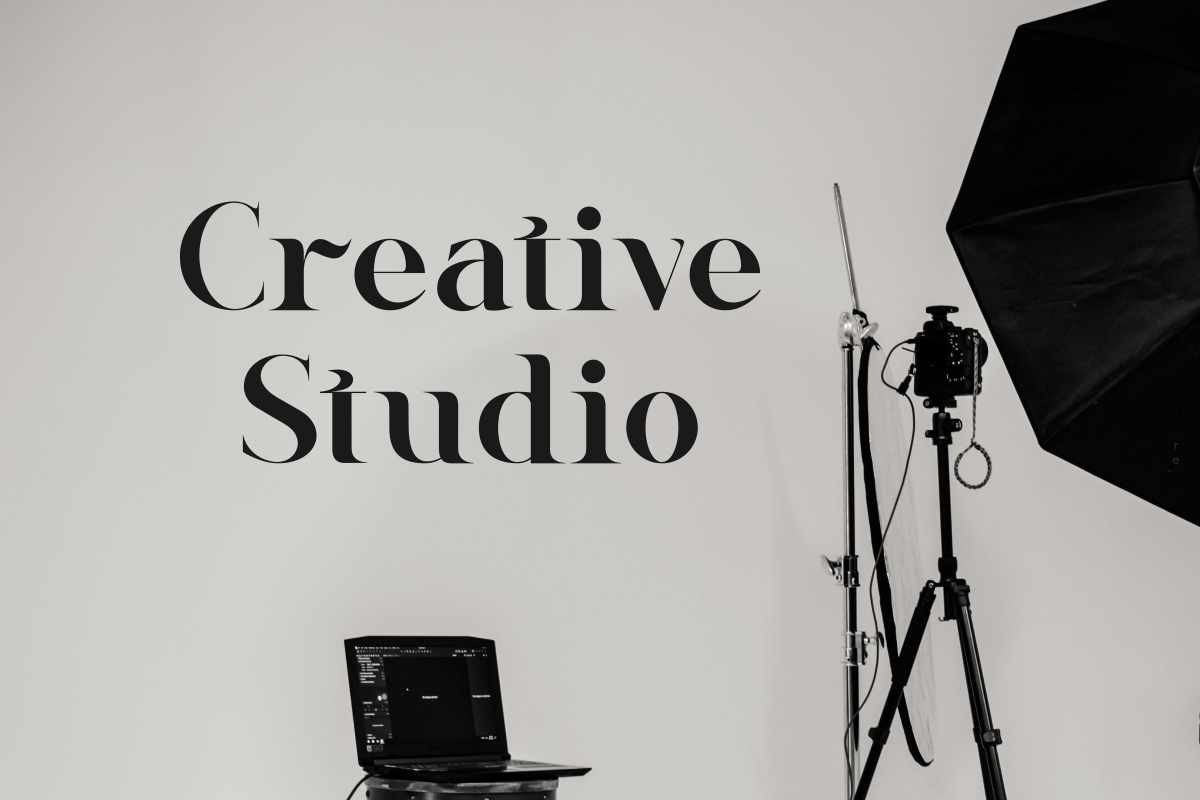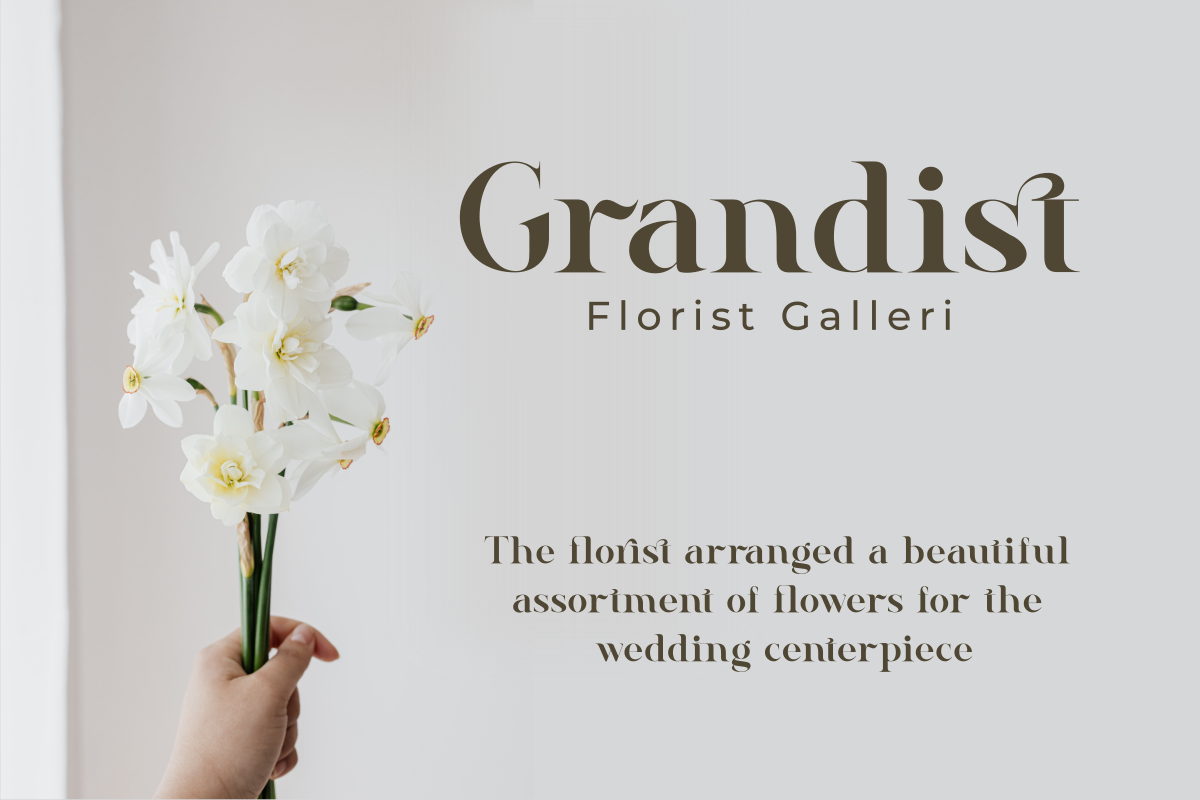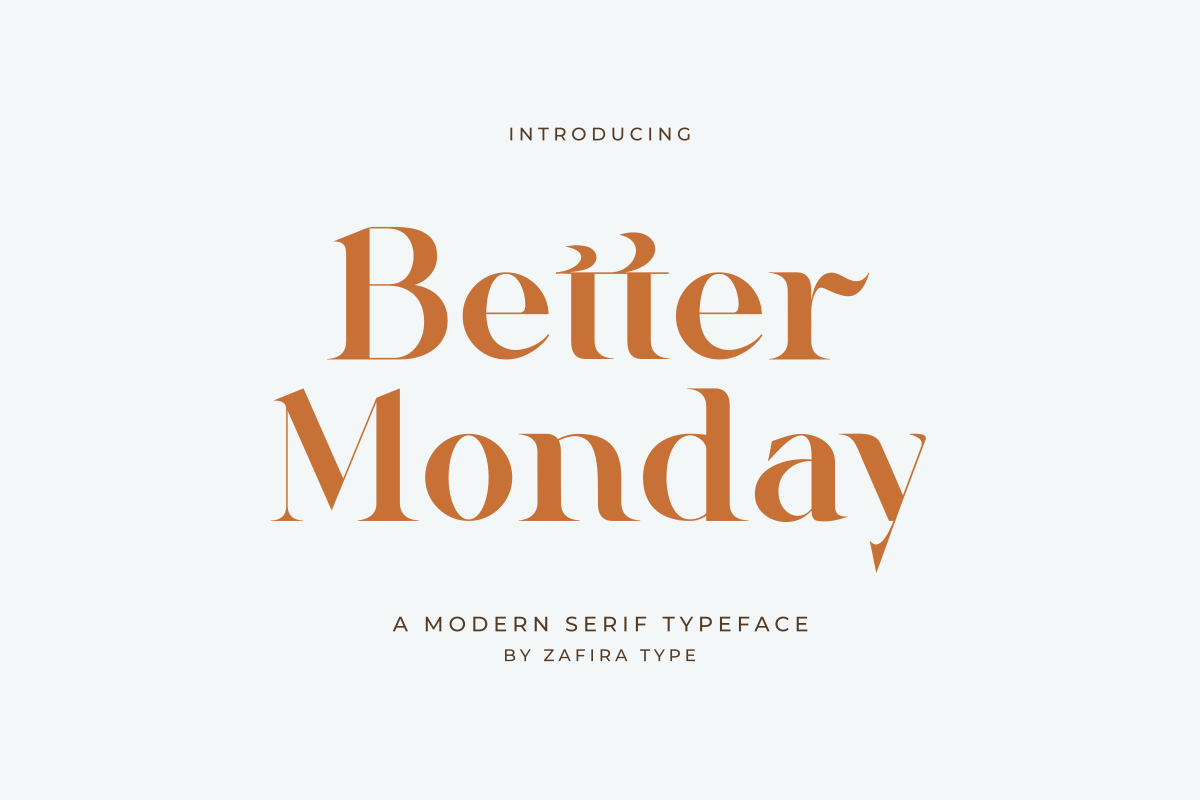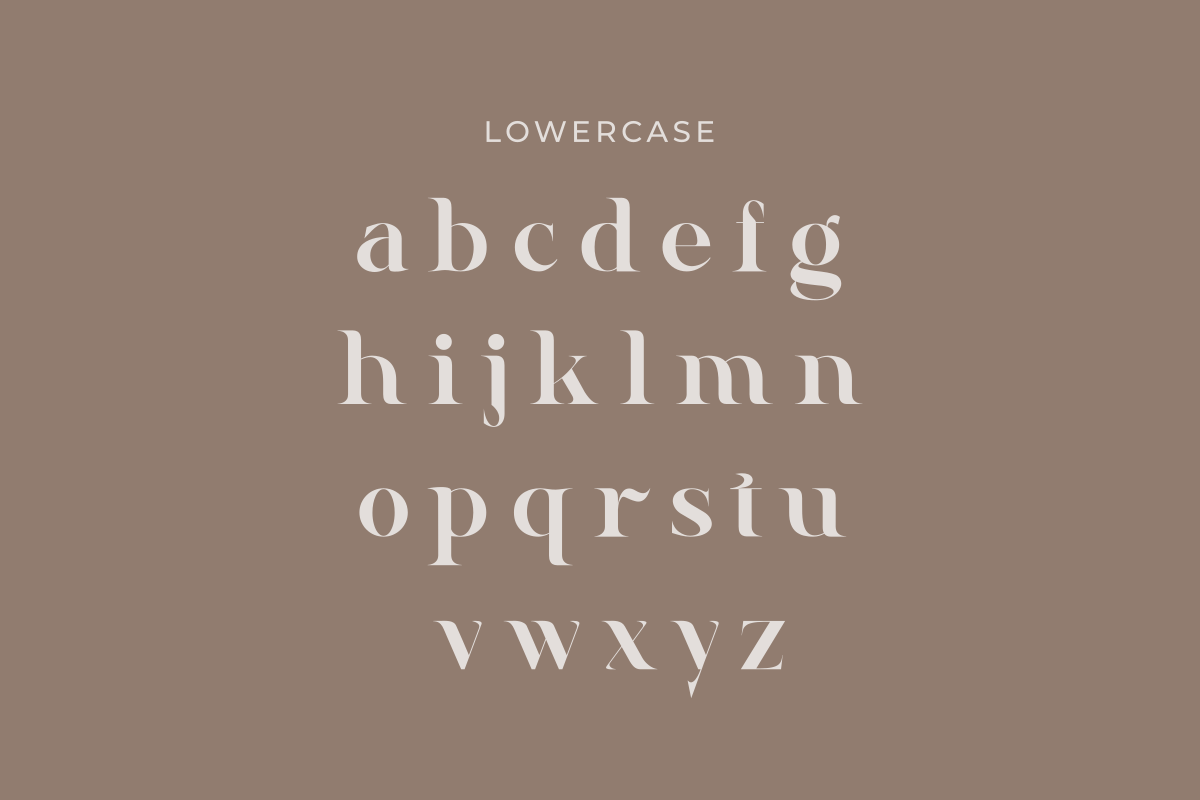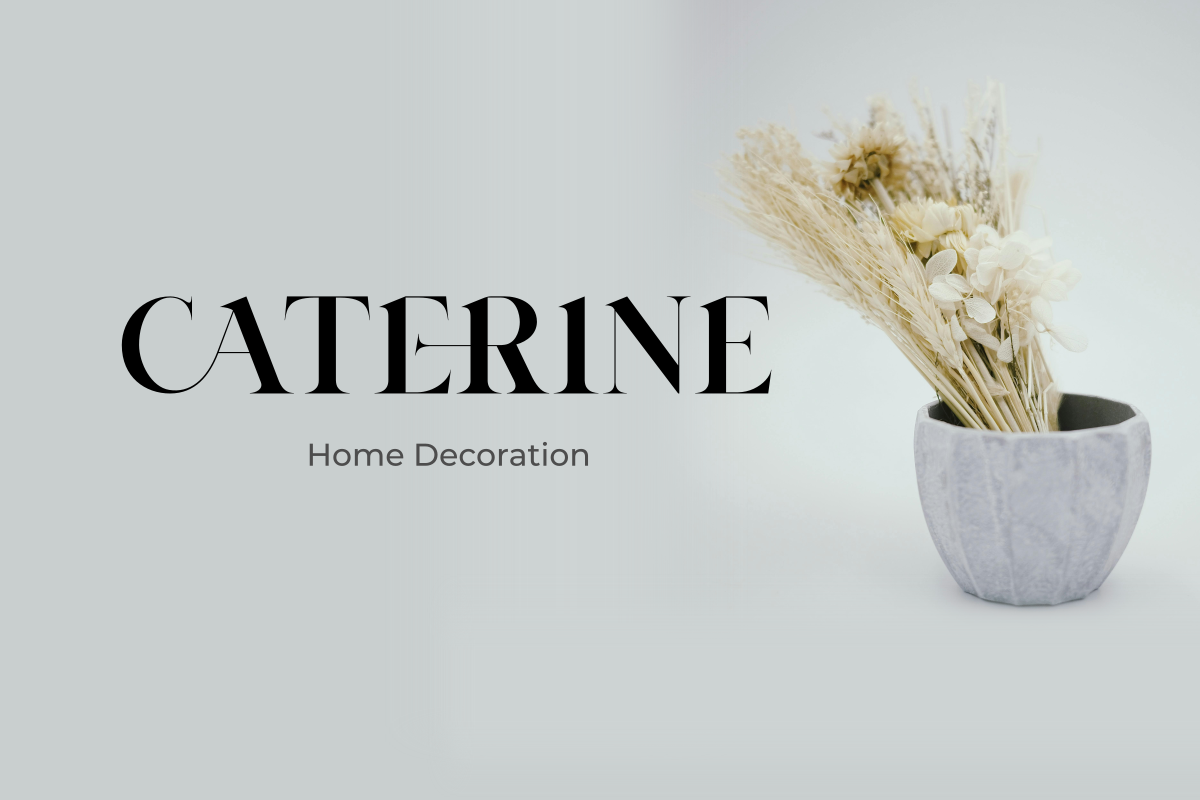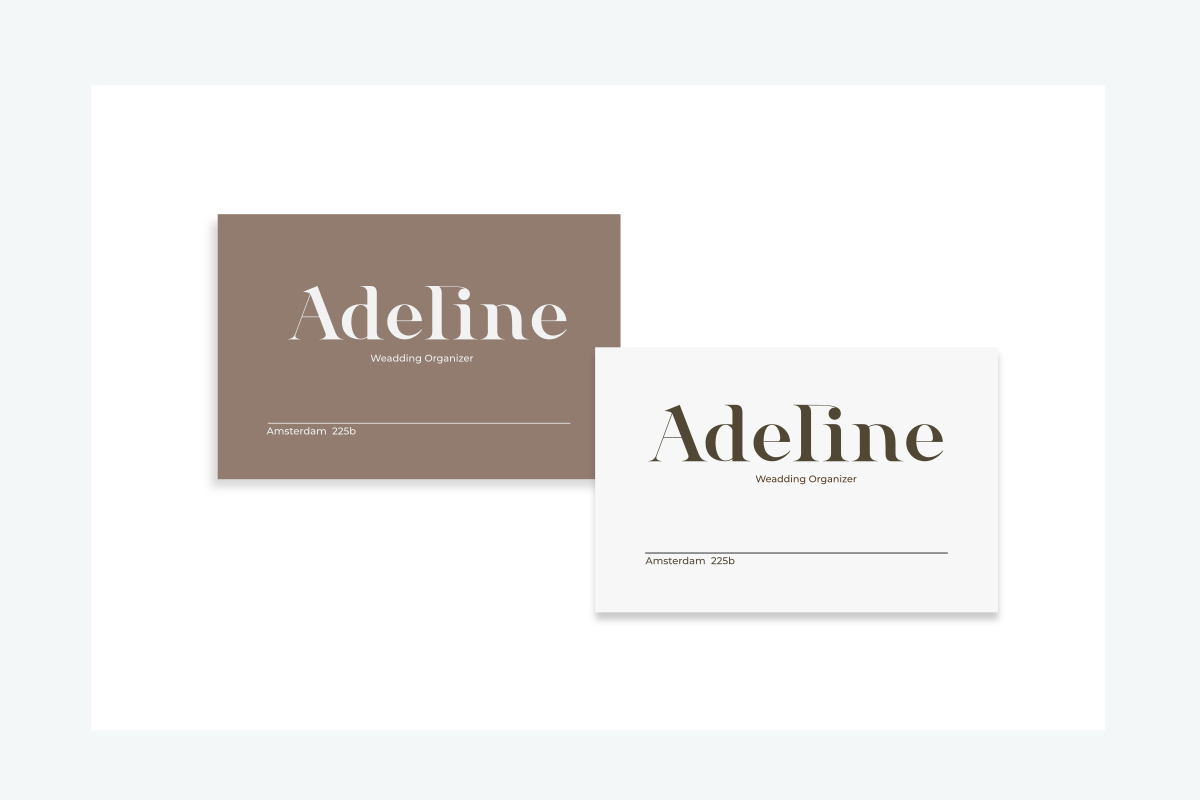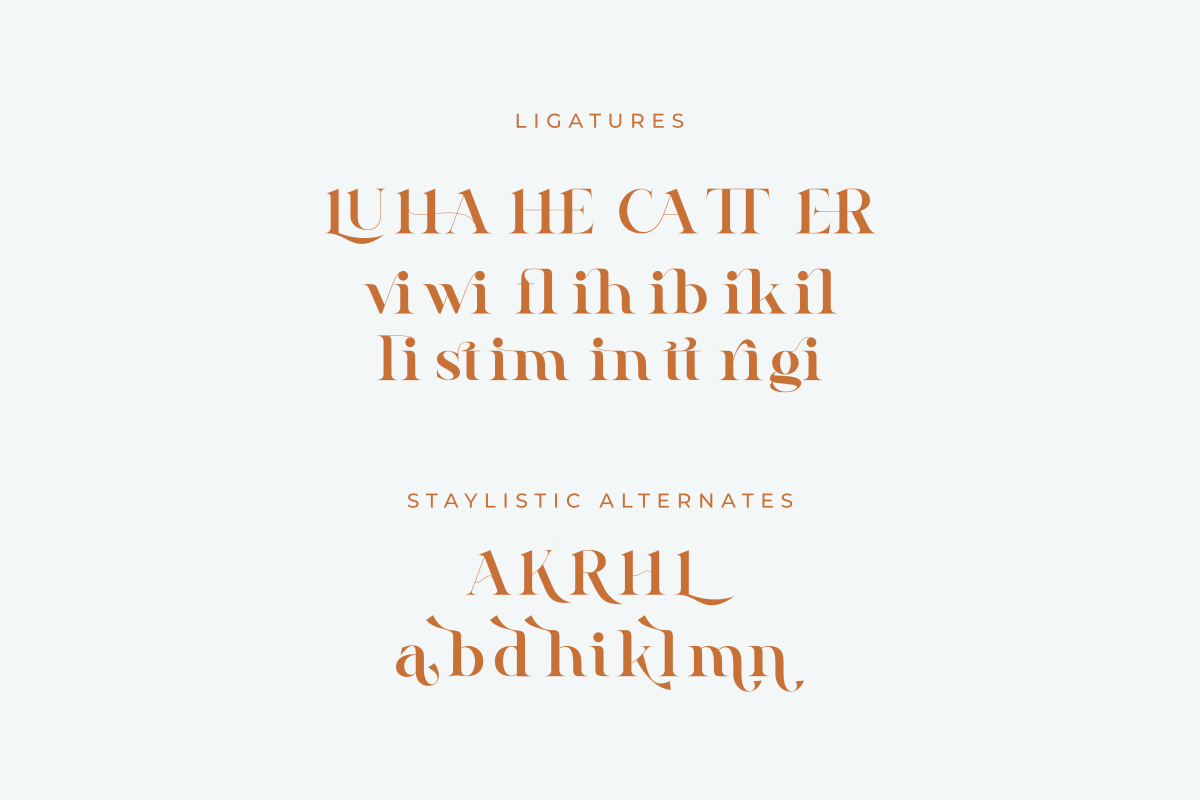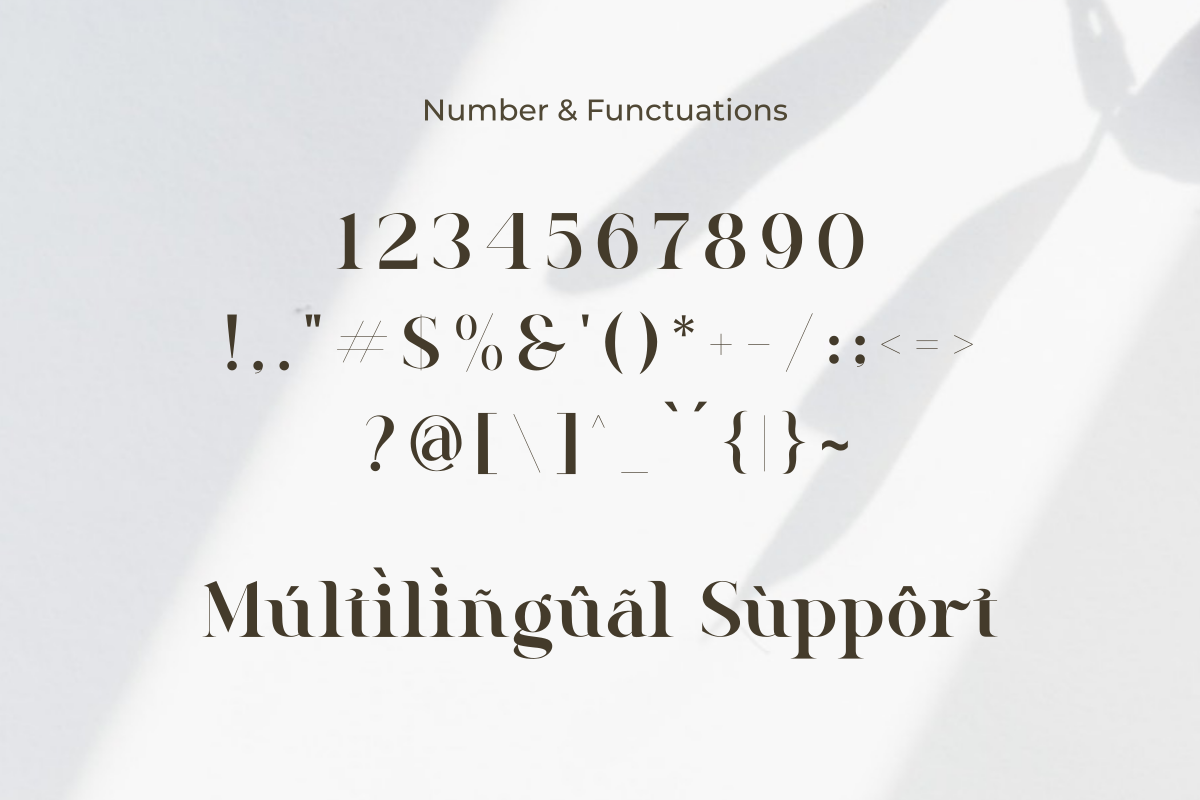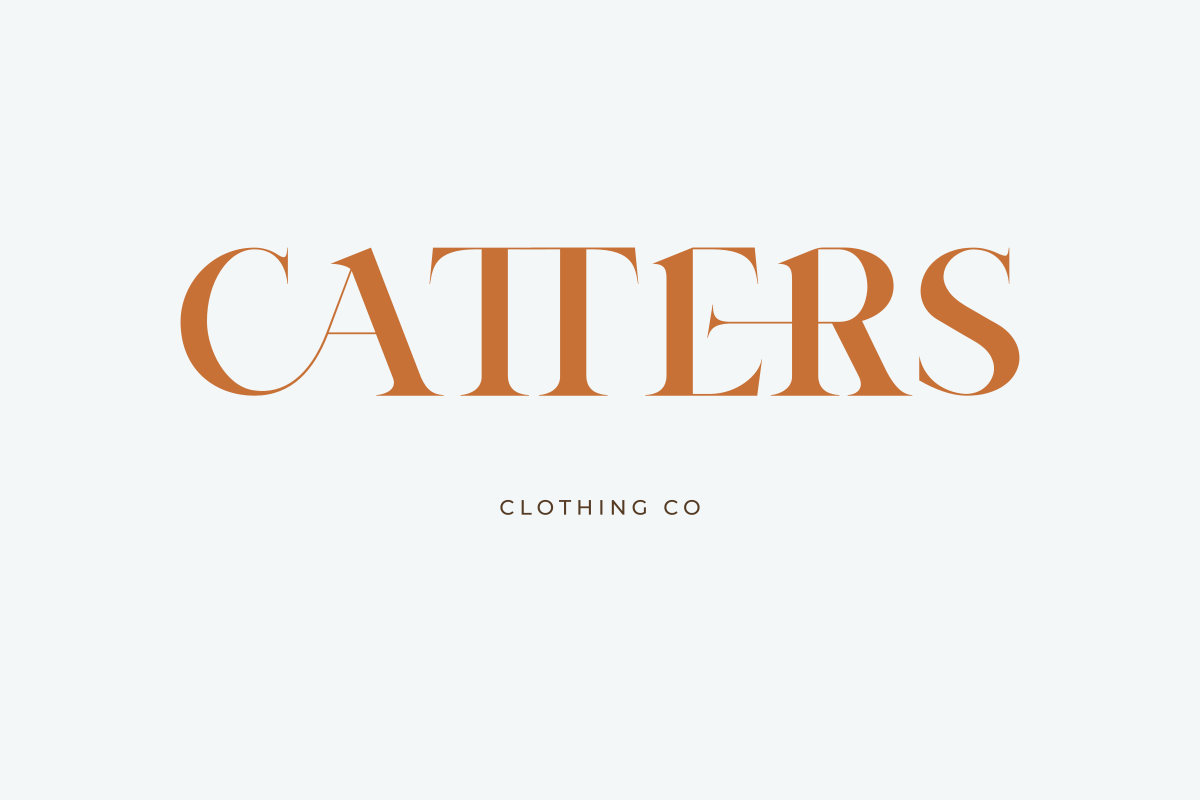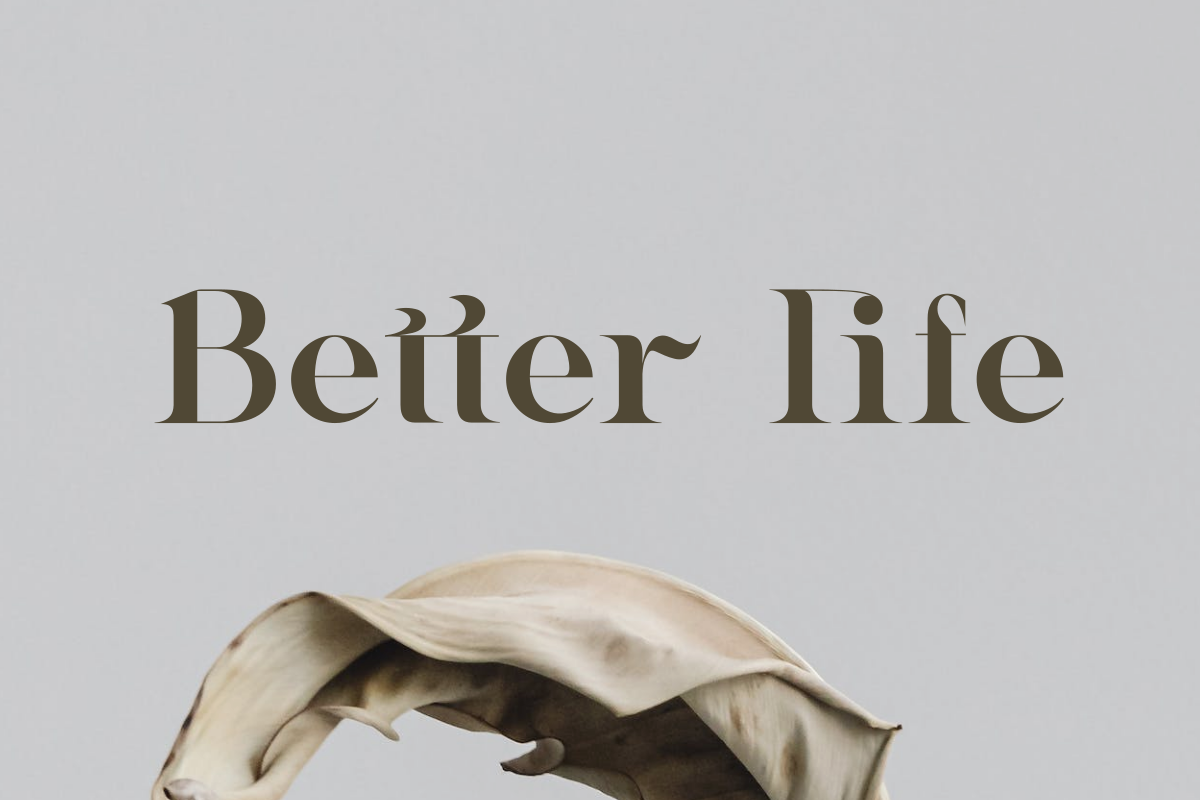
Better Monday
Better Monday is a standout serif display font with elegant and modern characteristics. Known for its contrast between thick and thin, as well as the sharp angles of its serifs, Better Monday displays an elegance that lends itself to titles, headers, or other design elements that require an attractive, classy appearance. With its ability to attract attention without sacrificing clarity, Better Monday is often used in the design of posters, advertisements, or magazine cover pages. The unique shape of the letters gives them a standout and eye-catching touch, making them a popular choice for designers looking to create a bold and impressive statement.